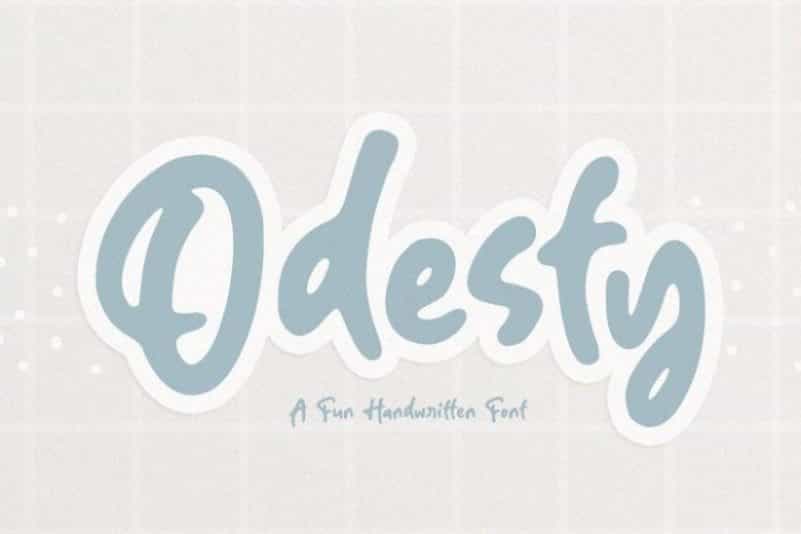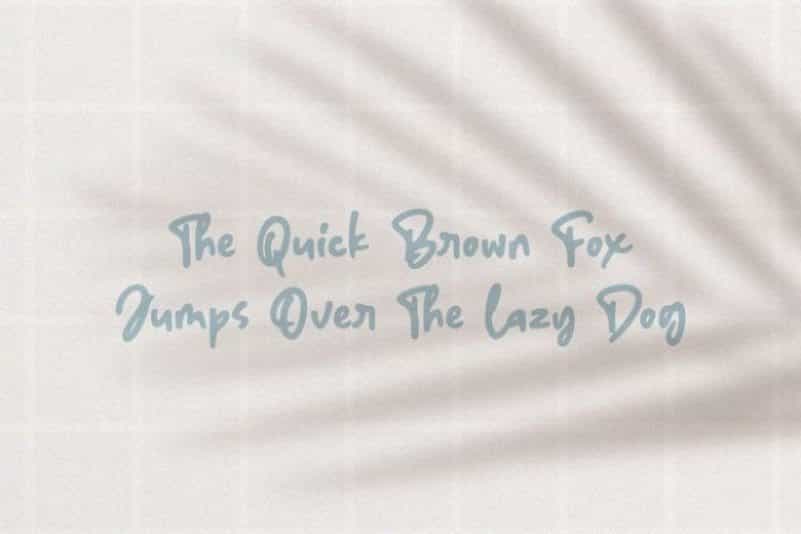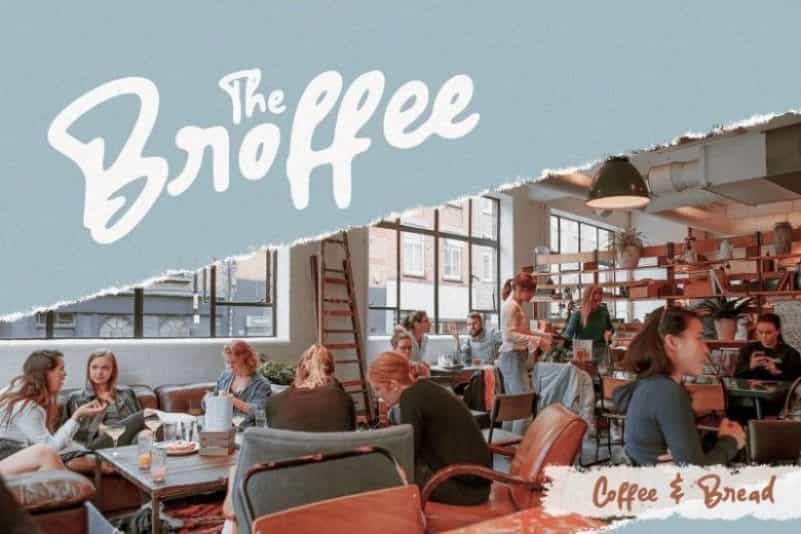
Odesty a fun handwritten font is one of the best fonts. This font is ideal for your design project because it is elegant and modern type of character you can use this font in business cards, posters, branding names logos, products and many others.